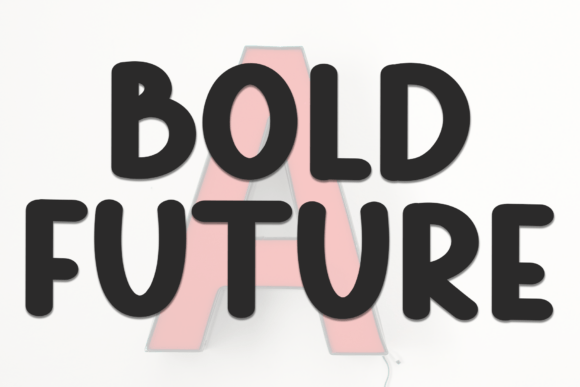
The Bold Future Font: A Game-Changer for Designers and Creative Hobbyists
I’ll never forget the time I was working on a project for a client who wanted a bold, eye-catching headline that would make their brand stand out. I spent hours scouring the internet for the perfect font, but nothing seemed quite right. That was until I stumbled upon the Bold Future font. With its thick, smooth strokes and modern feel, it was love at first sight! In this article, I’ll share my experience with the Bold Future font, its features, and how to make the most of it in your designs.
What is Bold Future Font?
Bold Future is an extra bold handwritten display font that exudes confidence and energy. Its strong, modern feel makes it perfect for making a statement in designs, headlines, and posters. The font is easy to read, with a fun and energetic vibe that’s sure to capture your audience’s attention.
So, what do I love about the Bold Future font? Here are a few things that make it stand out:
• ✨ Unique and eye-catching design: The Bold Future font has a distinctive look that’s sure to make your designs stand out from the crowd.
• ✅ Ease of readability: Despite its boldness, the font is surprisingly easy to read, even at smaller sizes.
• 💥 Versatility: The Bold Future font can be used in a variety of design contexts, from posters and headlines to logos and branding.
• 🤔 Limited use in body text: Due to its boldness, the Bold Future font may not be the best choice for body text or longer blocks of text.
• ⚠️ Kerning issues: As with any font, there may be some kerning issues, particularly with certain letter combinations.
The Designer Inspiration Behind Bold Future Font
The Bold Future font was designed with the modern designer in mind. Its creator, a talented typographer, wanted to create a font that would be both bold and elegant. The result is a font that’s perfect for making a statement in your designs.
What is the Bold Future font best used for? The Bold Future font is best used for headlines, posters, and other display text where a bold, eye-catching font is needed.
Is the Bold Future font easy to read? Yes, despite its boldness, the Bold Future font is surprisingly easy to read, even at smaller sizes.